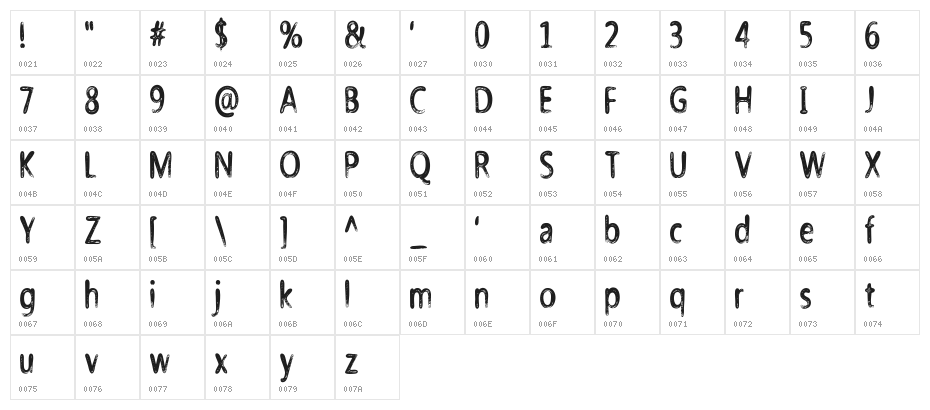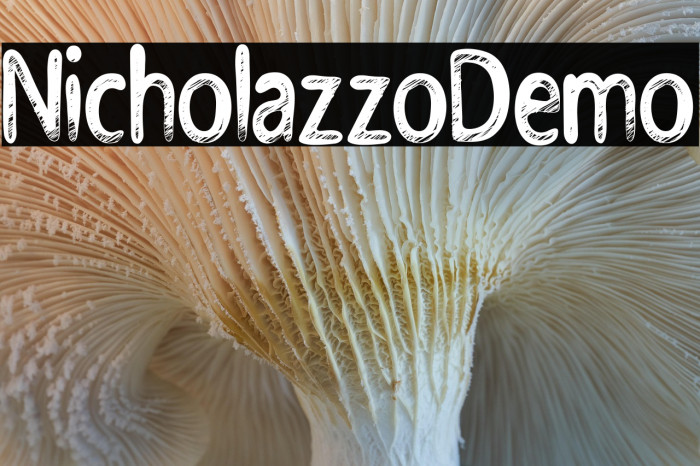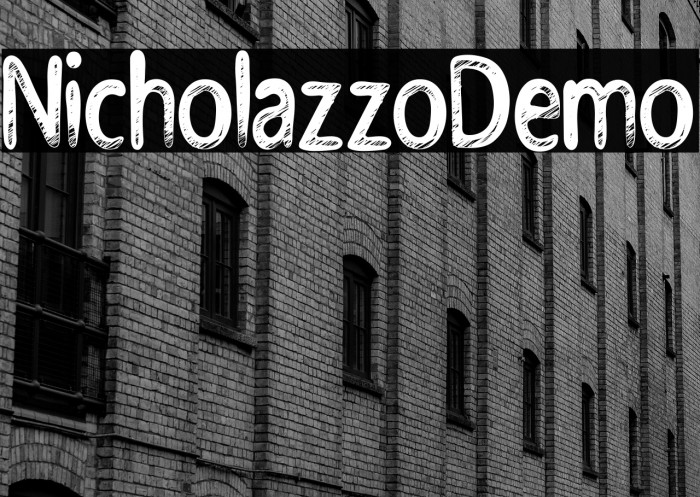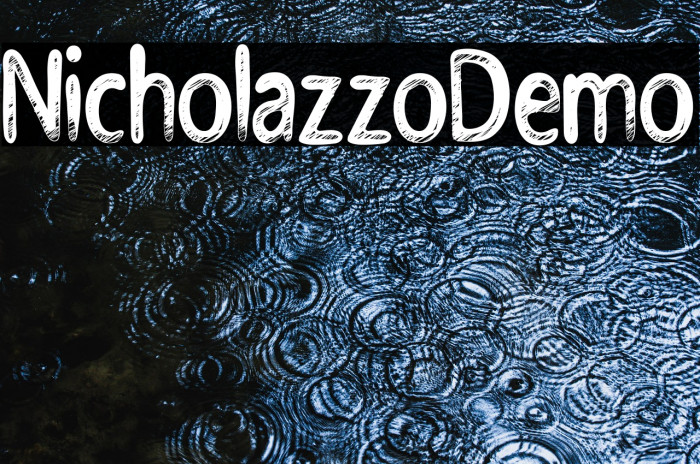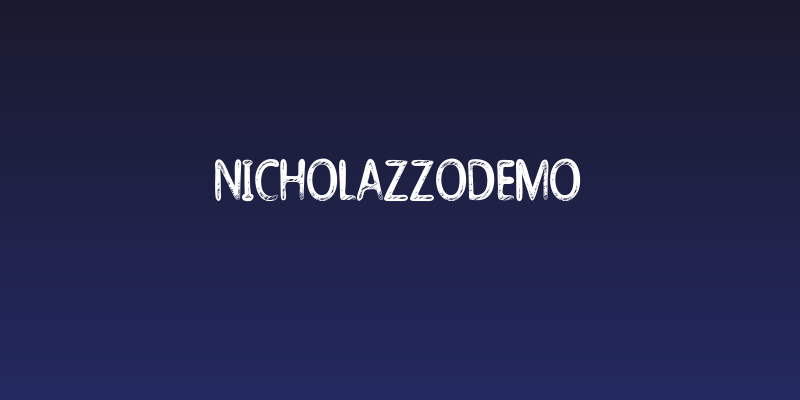
NicholazzoDemo Font
NicholazzoDemo Description
This font features a playful and artistic style with a hand-drawn appearance. The characters are bold and slightly irregular, giving them a unique, sketch-like quality. The strokes are thick and have a textured, shaded effect that adds depth and visual interest. The uppercase and lowercase letters maintain a consistent style, while the numbers and special characters complement the overall design. This font is ideal for projects that require a creative and informal touch, such as children's books, posters, or artistic branding.
| Overall Style | Playful, Artistic |
| Proposed Projects | Ideal for children's books, posters, artistic branding, and creative projects. |